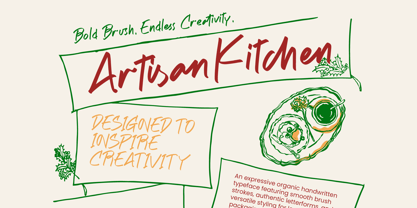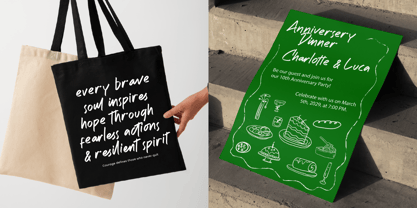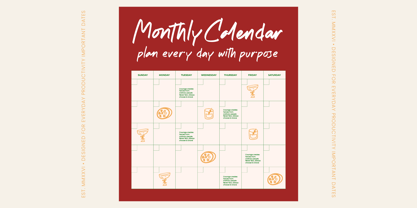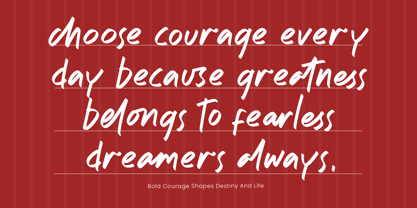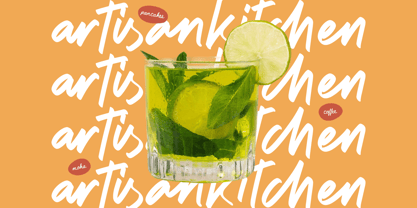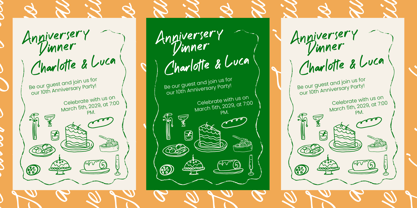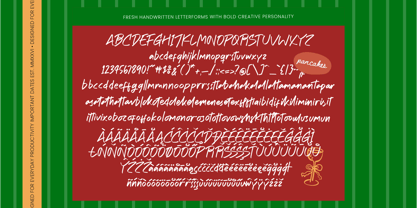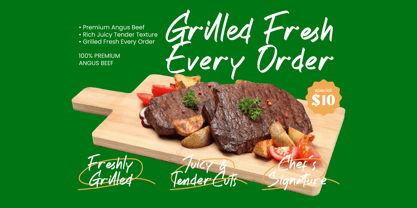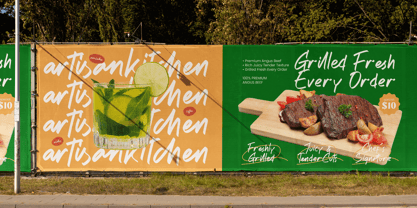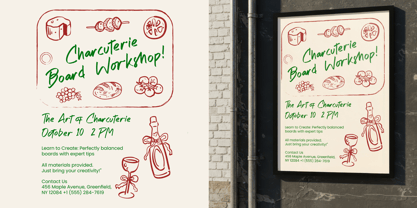
Artisan Kitchen
by Stylishtype Studio
The Artisan Kitchen Font Family was designed by Heru Utama Putra and published by Stylishtype Studio. Artisan Kitchen contains 2 styles and family package options. More about this family
Artisan Kitchen brings a tactile warmth to your digital canvas, blending organic brush strokes with a sophisticated, hand-crafted aesthetic. This font is designed for those who believe that the most powerful designs are the ones that feel truly human.
The soul of this typeface lies in the fluid movement of a natural ink brush, capturing the effortless charm of a chef’s handwritten recipe or a rustic storefront sign. It evokes an atmosphere of authenticity and cozy elegance, perfect for storytelling-driven design.